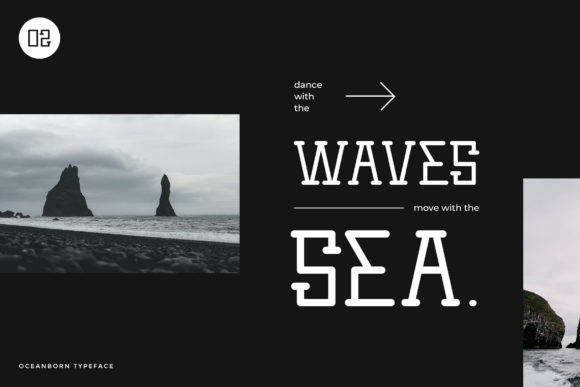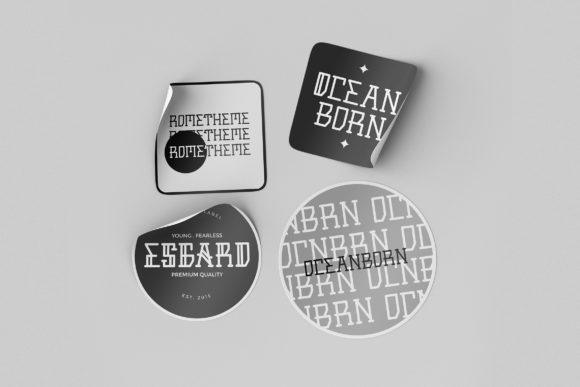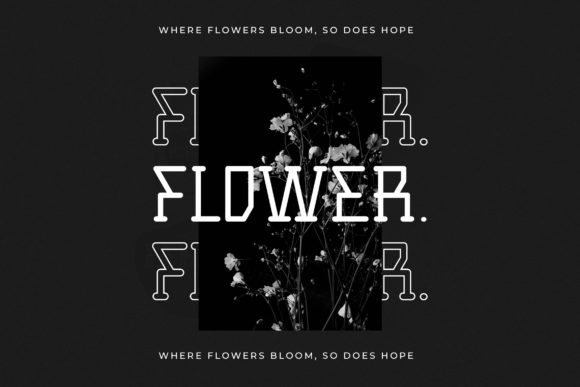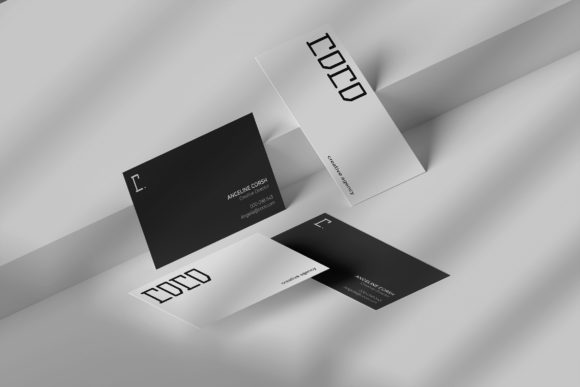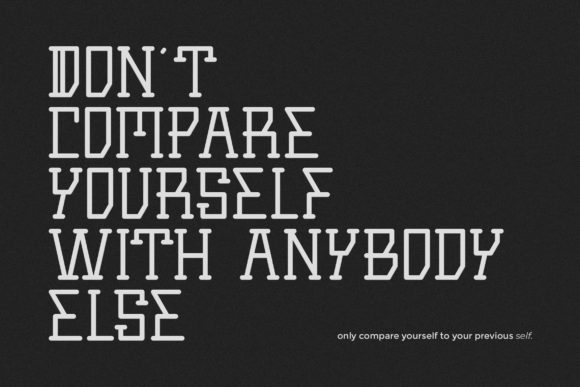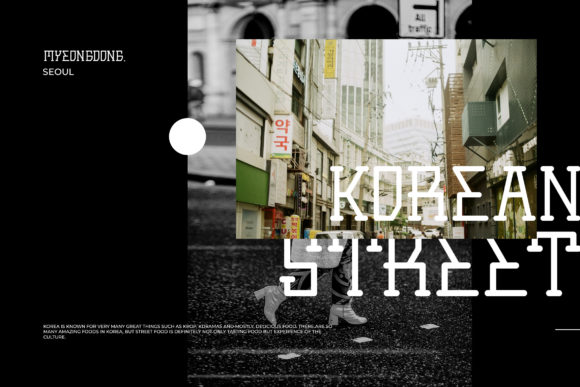
Introduction to Oceanborn – Display Font
Oceanborn is a fantastic display font.
Its elegant, minimal, classy, and modern look makes it a fantastic choice for fashion, apparel projects, signature, album covers logos, branding, magazines, social media posts, advertisement, and many more Use this display font to add that special cool touch to any design idea you can think of.
Key Features of Oceanborn – Display Font